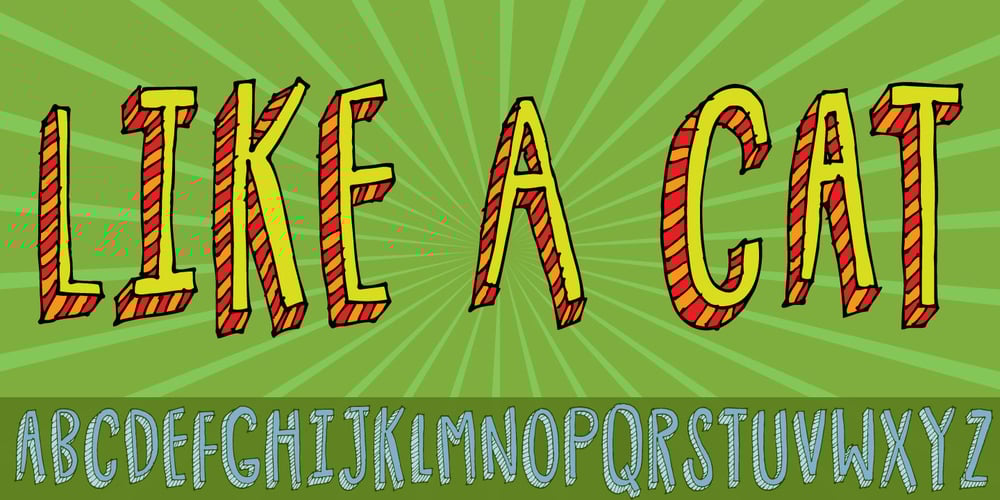
Like A Cat
Like A Cat font
Like A Cat Font Family was designed by Jakob Fischer and published by PizzaDude.dk. Like A Cat contains 1 styles and family package options. As a kid I used to write my favourite football teams name with 3D letters over and over again. I spent hours doing this – often to find out I had the colors wrong, or I had made a spelling error or two – but now, several years after, I have created the “Like a cat” font – so that you can make “handmade” headlines or funny quotes or even your favourite football teams name in a swoosh! If you get the colors wrong, or you make a spelling error, it’s fast and easy to correct! 🙂 Like a cat comes with substitution characters for double letters!